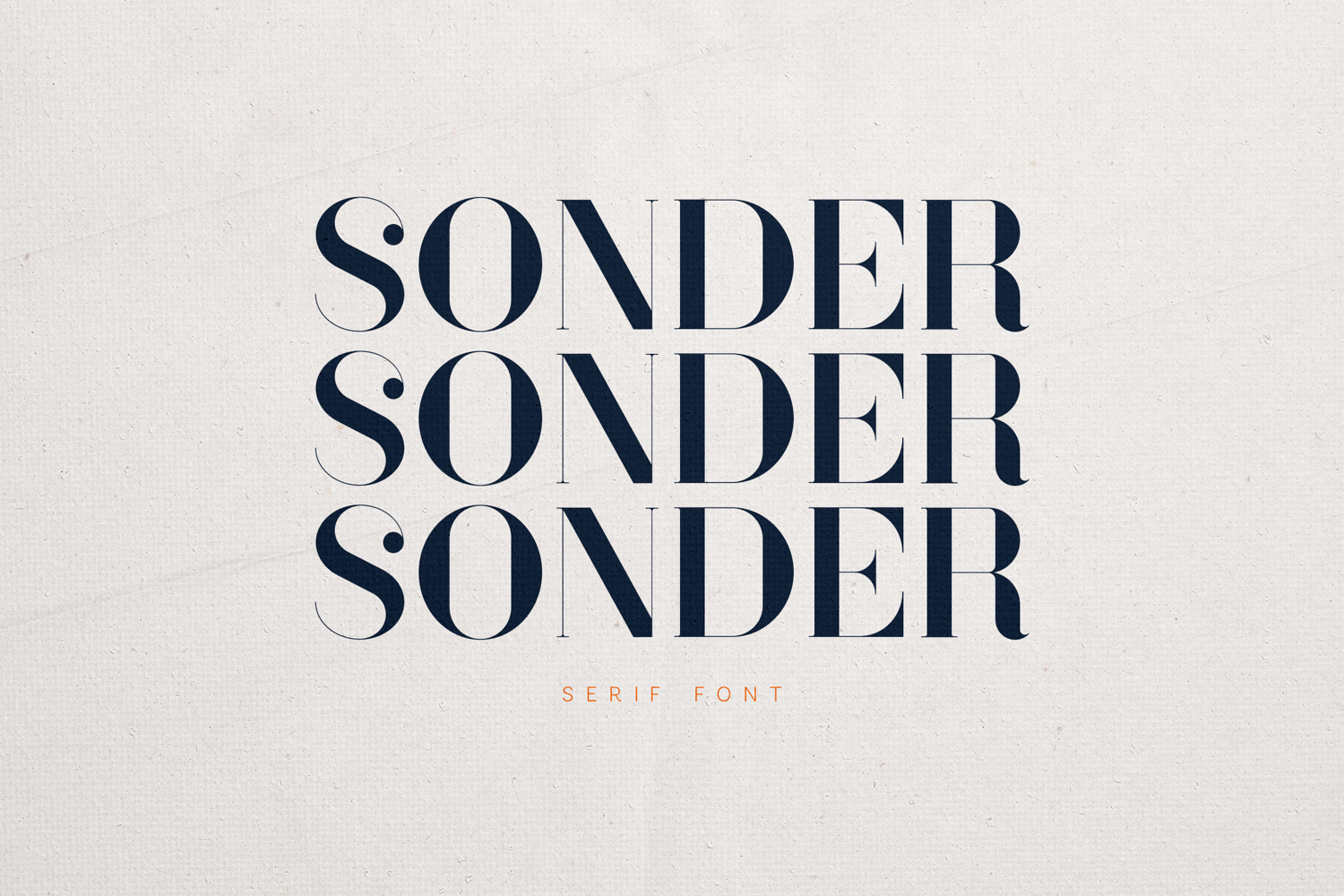
Sonder Elegant Serif Modern Editorial Typeface
Sonder is a modern elegant serif font designed to bring sophistication, clarity, and timeless beauty to your work. With refined contrast, graceful curves, and carefully crafted letterforms, it delivers a distinctive editorial feel inspired by high-fashion typography.
Its balanced structure and subtle details make it perfect for creating clean, premium designs that feel both contemporary and classic. Sonder stands out in large headlines while maintaining excellent readability across a variety of applications.
Whether you’re designing a luxury brand identity or a fashion magazine layout, Sonder gives your work a confident, polished voice.
✨ Perfect for• Editorial & magazine design
• Luxury branding
• Logos & wordmarks
• Fashion & beauty visuals
• Packaging design
• Social media & websites
• High contrast serif design
• Elegant and modern style
• Clean editorial aesthetic